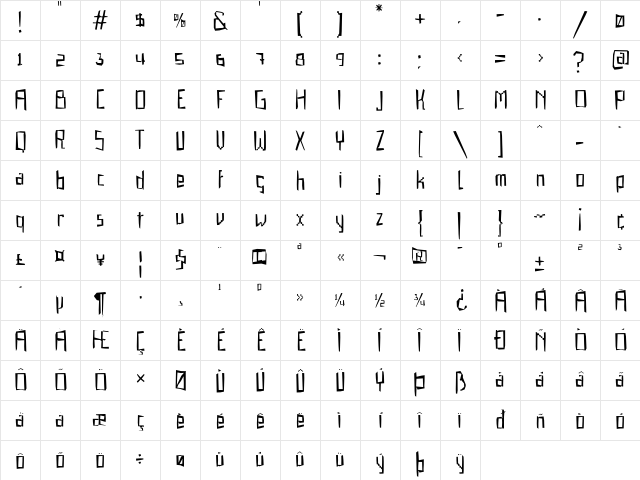
Gabardina is a composed and adaptable typeface that performs quietly and consistently across a wide range of design contexts.
Pro Tip: Use Gabardina in both headline and body roles to test its range before committing to a single application.